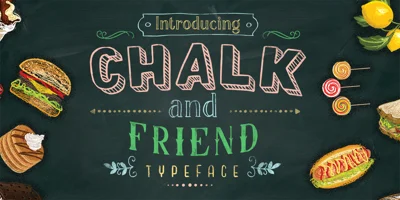
Chalk and Friend Font
Chalk and Friend Font is perfect for classroom educational materials, children's learning apps, school chalkboard designs, teaching resource graphics, playground signage, kids' birthday party invitations, educational game interfaces, and friendly learning campaigns. This playful typeface excels in applications where educational charm and childhood friendliness are essential.
What makes Chalk and Friend Font so exciting is its heartwarming ability to recreate the nostalgic charm of childhood learning through authentic, chalk-textured letterforms that embody the joy of discovery and the warmth of friendly educational environments. The font features whimsical character shapes with chalk dust textures and classroom styling that evoke images of eager students, caring teachers, and the magical moments when learning becomes an adventure. Its education-focused design philosophy combines classroom authenticity with contemporary accessibility, making it perfect for educational brands seeking to convey learning joy, childhood wonder, and connection to teaching communities and family education culture.
Chalk and Friend Font belongs to the educational display font family, specifically designed for learning and child-friendly branding applications. This typeface family emphasizes playful visual warmth through chalk-inspired styling and friendly character elements, ensuring authentic educational presentation across various teaching and childhood learning-focused design projects.
Inspire joyful learning with Chalk and Friend Font, a typeface that embodies the friendly spirit of childhood education and classroom discovery. This charming font delivers exceptional warmth for educational applications, featuring comprehensive character sets with learning symbols and friendly punctuation marks that capture the essence of teaching moments and educational adventures. Its lovingly crafted letterforms maintain excellent readability while preserving the authentic classroom aesthetic across various sizes, from small worksheet headers to large school entrance displays. The font's distinctive educational personality makes it invaluable for designers creating learning brands, educational materials, and childhood content where conveying friendliness, discovery, and educational warmth is crucial for engaging students, parents, and educators seeking positive, encouraging learning experiences.